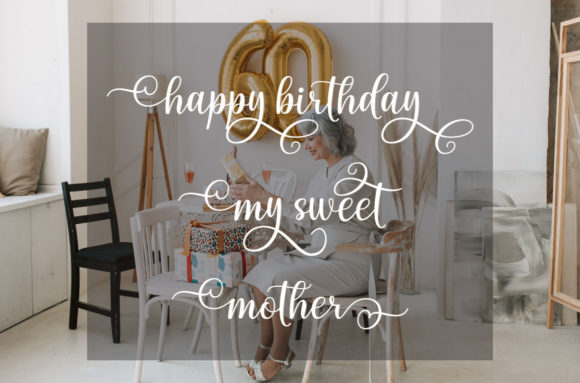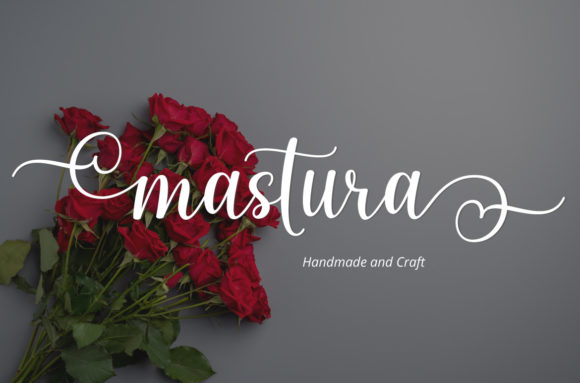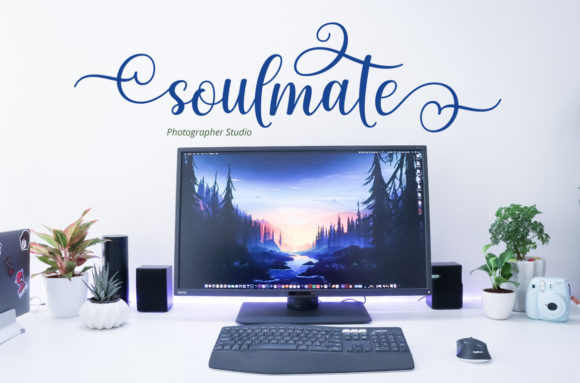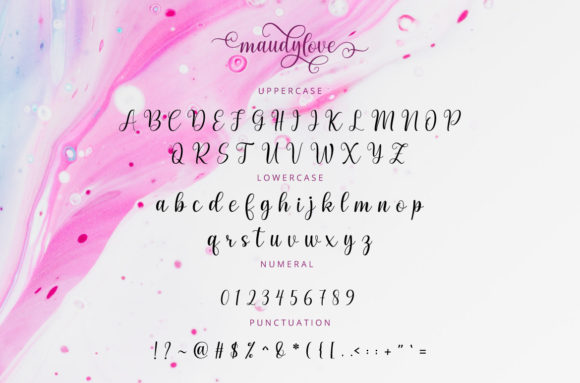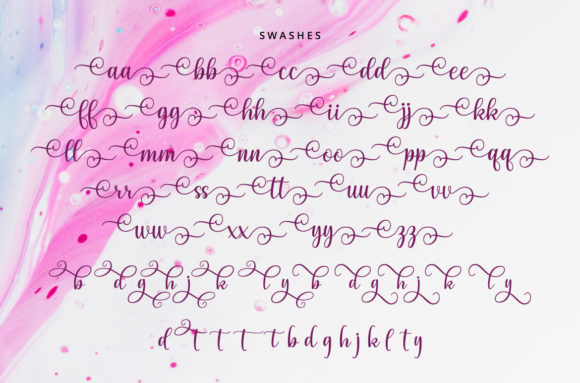
Introduction to Maudylove Font
Have you ever stumbled upon a design that just makes you swoon? For many creatives, that moment comes when they discover a high-quality font that perfectly captures the essence of their project. For me, that moment was when I laid eyes on the stunning Maudylove Font. Its smooth curves and vintage charm instantly transported me to a world of elegance and sophistication.
As a designer, I can confidently say that the right font can make all the difference in a project. It’s a design resource that can elevate your work from ordinary to extraordinary. And the Maudylove Font is no exception. With its perfect balance of style and versatility, it’s a must-have for any creative project, whether it’s a fashion branding campaign or an editorial design.
Key Features of Maudylove Font
- Unique, hand-drawn style with a touch of elegance and sophistication
Honest Review: Maudylove Font
As a designer, I’m always on the lookout for high-quality design resources to enhance my creative projects. Recently, I stumbled upon the Maudylove Font, and I must say, it’s a great addition to my design arsenal.
What works well about the Maudylove Font is its versatility. It’s perfect for creating eye-catching titles and headings, and its clean, elegant design makes it suitable for a wide range of creative projects. I also appreciate that it’s a free download, which is always a bonus for designers on a budget. Additionally, the font has a transparent background, making it easy to layer and customize.
- ✨ Clean and elegant design
- ✨ Versatile and suitable for various creative projects
However, there are a few limitations to keep in mind. The font only comes in one style, which may limit its use in projects that require a more extensive font collection. Additionally, the font may not be suitable for projects that require a bold or dramatic look.
Overall, I’m impressed with the Maudylove Font, and I would recommend it to designers looking for a high-quality, free design resource. With a little creativity, this font can add a touch of elegance to any project.
Tips for Getting the Most Out of Maudylove Font
For the best results, use Maudylove Font on a transparent background to give your design a clean and modern look. You can also experiment with different font sizes and styles to create a unique visual effect.
Maudylove Font is ideal for creative projects that require a high-quality, elegant font. Some common use cases include wedding invitations, business cards, and social media graphics. You can also download this font for free to use in your personal projects.